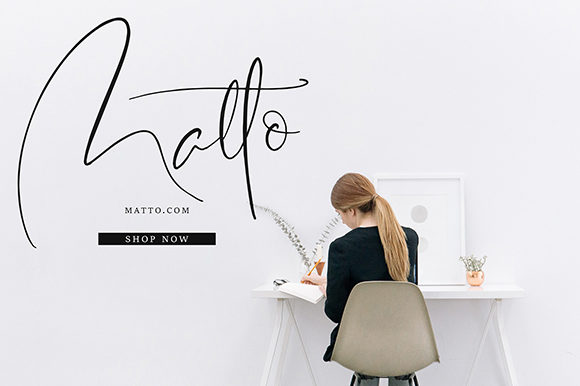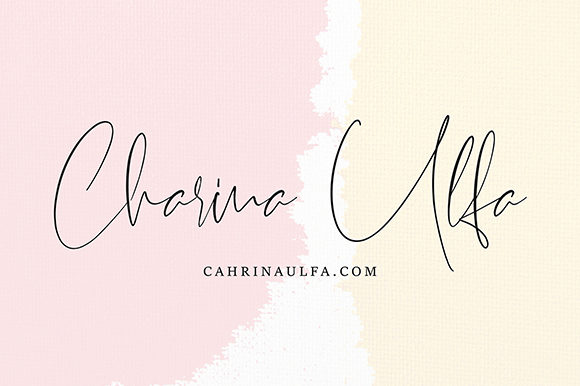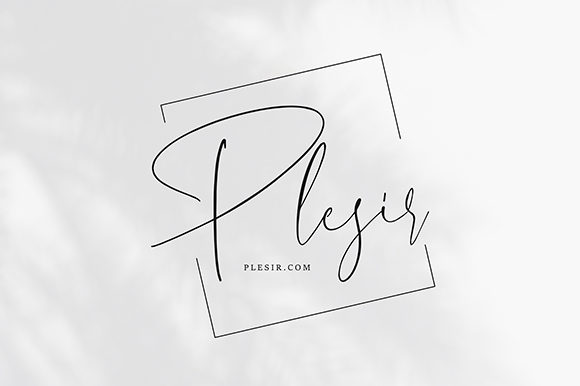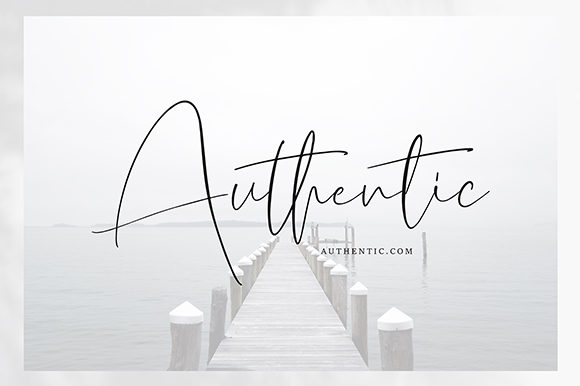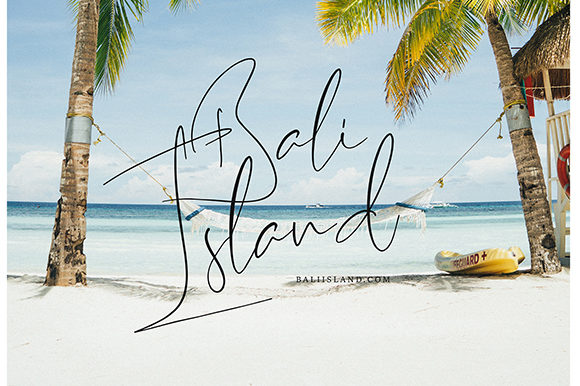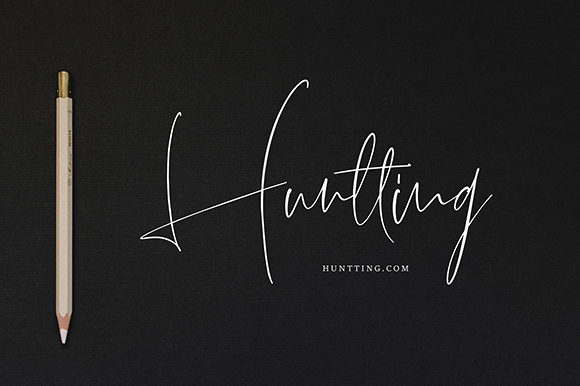
Introduction to Sellicite Font
Have you ever stared at a blank canvas, waiting for the perfect spark to ignite your creative project? For designers, that moment of inspiration can be the difference between a good design and a truly exceptional one. And that’s exactly where the charming Sellicite Font comes in – a beautiful handwritten font that’s sure to elevate any design project and leave a lasting impression.
With its authentic charm and modern twist, the Sellicite Font is a design resource that’s hard to resist. Whether you’re working on a personal project or a client-based design, this font is the perfect tool to add a touch of sophistication and elegance. And the best part? It’s available for free download, making it an accessible high-quality design element for designers of all levels.
- Unique, modern design that adds a touch of sophistication to any creative project.
Honest Review: Sellicite Font
I recently came across the Sellicite Font and was excited to give it a try. As a designer, I’m always on the lookout for high-quality design resources that can elevate my creative projects. The Sellicite Font is a beautiful addition to any design toolkit.
- ✨ High-quality design**: The Sellicite Font is a beautifully crafted font that exudes sophistication and elegance. It’s perfect for any project that requires a touch of sophistication.
However, there are a few limitations to the Sellicite Font that I want to mention. ⚠️ Some users may find the font too ornate or decorative, which may not be suitable for all design projects. Additionally, the font may not be compatible with all software or operating systems.
Overall, I’m impressed with the Sellicite Font and would recommend it to designers looking for a high-quality design resource for their creative projects. While it may have some limitations, the benefits far outweigh the drawbacks.
The Sellicite Font is ideal for use in logos, branding materials, and other design projects where a high-quality, unique font is needed. It’s also a great choice for creating a consistent design look across multiple platforms.